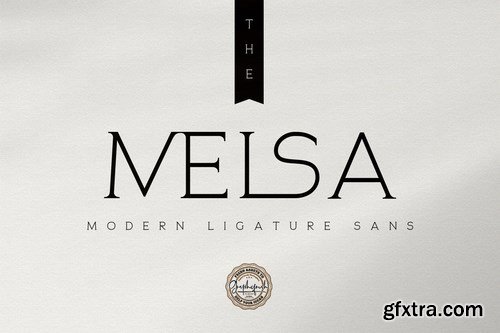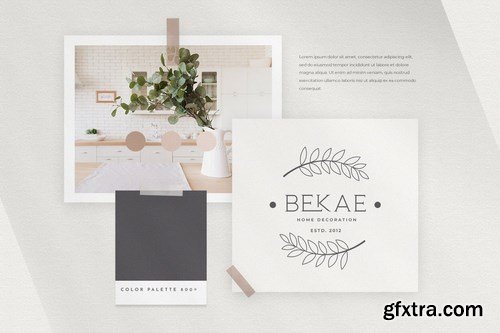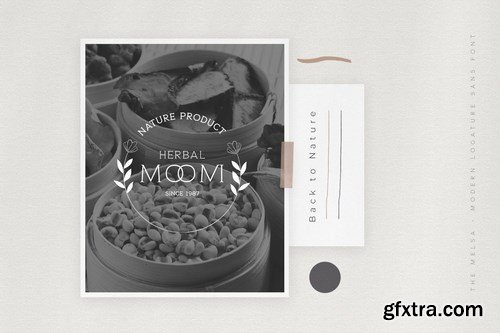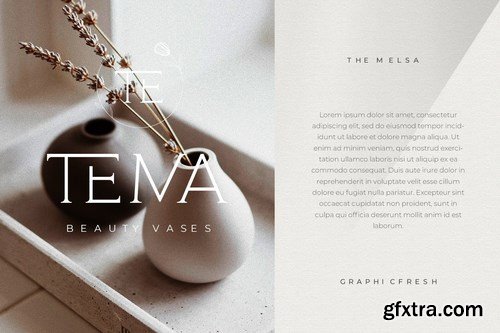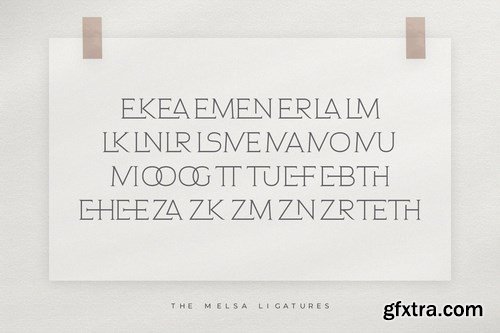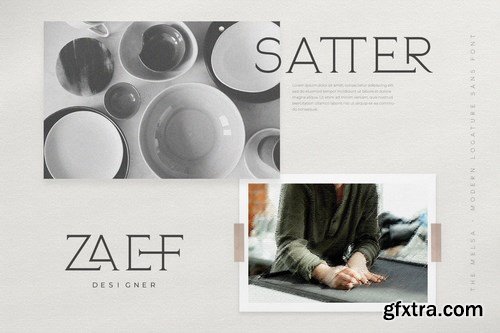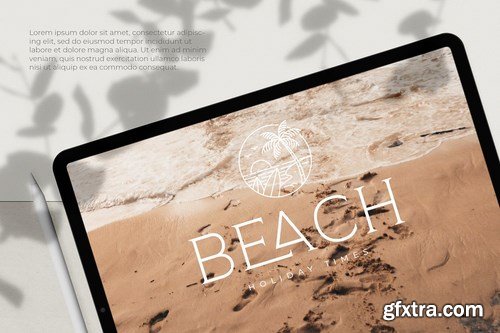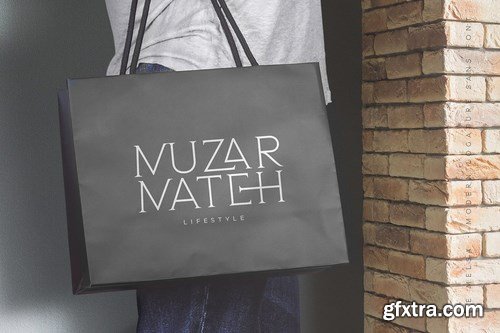
The Melsa - Modern Ligature Sans
The Melsa - Modern Ligature Sans and minimalist character! it's perfect for logos, name card, magazine layouts, invitations, headers, or even large-scale artwork.